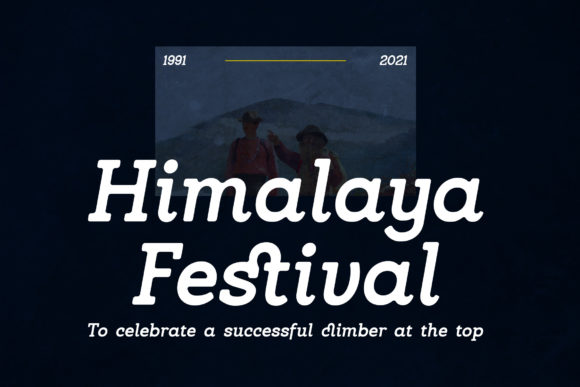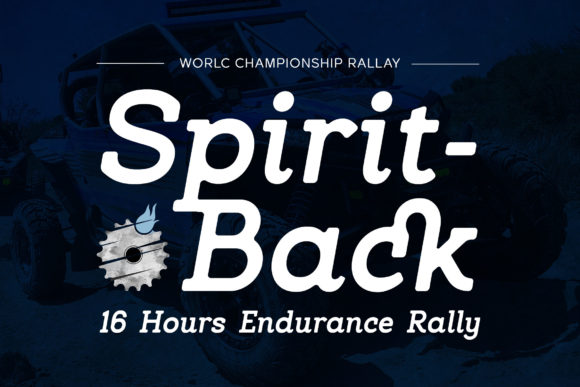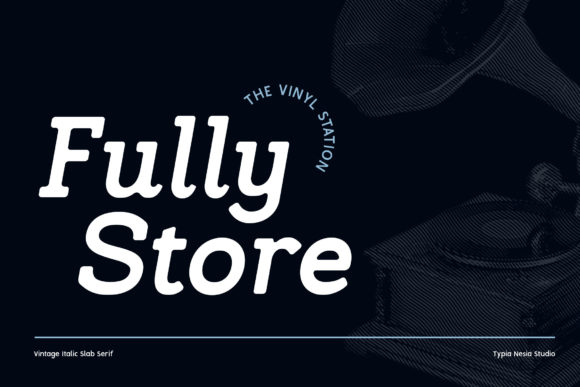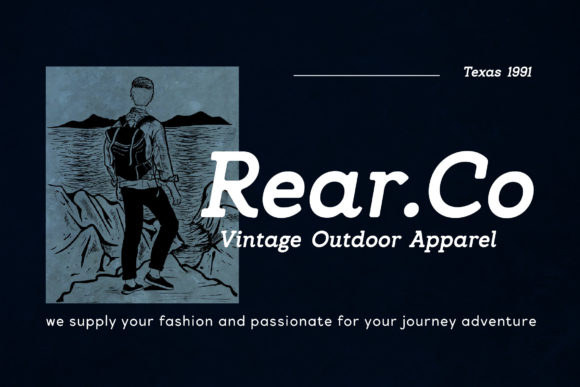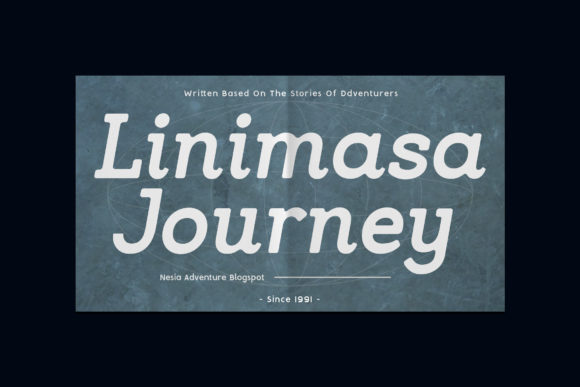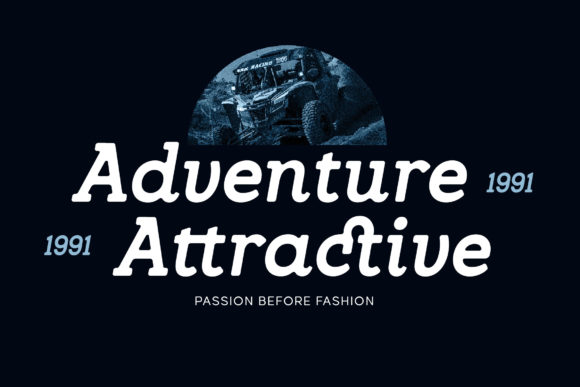
Introduction to Reshifter Font
Have you ever found yourself in the middle of a creative project, staring at a blank page, and struggling to find the right font to bring your vision to life? It’s a moment we’ve all been in, and it’s exactly what makes discovering a game-changing font like Reshifter so exciting.
As a designer, you know the importance of having a high-quality design resource at your fingertips. Whether you’re working on a branding project, a digital illustration, or a web design, the right font can make all the difference. And that’s exactly what Reshifter Font offers – a unique blend of vintage charm and modern style that’s sure to elevate any creation.
Key Features of Reshifter Font
- Unique and versatile design, perfect for creative projects requiring a modern twist.
Honest Review: Reshifter Font
What works well is the font’s versatility and flexibility. It’s perfect for designing titles, headings, and even body text. The Reshifter Font has a unique, futuristic feel to it, which makes it perfect for projects that require a bit of edge.
- ✨ High-quality design: The font is crisp and clear, making it perfect for both digital and print projects.
- ✨ Transparent background: This feature allows for seamless integration with any background, giving you more design flexibility.
- ✨ Great for creative projects: The font’s unique style makes it perfect for projects that require a bit of creativity and flair.
However, there are a few limitations to consider. The font only comes in a few weights, which can make it a bit restrictive for projects that require a lot of variation.
Tips for Getting the Most Out of Reshifter Font
The Reshifter Font is ideal for use in a variety of creative projects, including business cards, brochures, and social media graphics. It’s also a great resource for designers who want to create a high-quality, transparent background design.